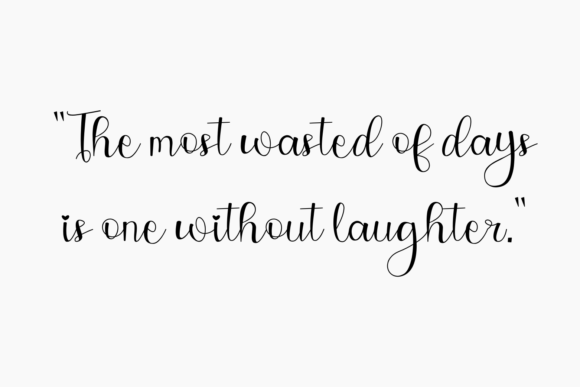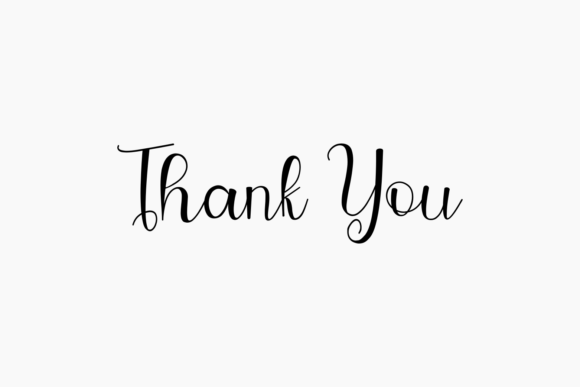
Introduction to Slupaiy Font
Have you ever stared at a blank page, feeling stuck and uninspired? That’s exactly where I was when I stumbled upon the Slupaiy Font. It’s a sweet and beautiful handwritten font that instantly sparked my creativity and transformed my design project into something truly special.
As designers, we’re always on the lookout for unique design resources that can elevate our work and make it stand out. The Slupaiy Font is a high-quality, free download that’s perfect for any creative project, from wedding invitations to social media graphics. With its beautiful, flowing characters that dance along the baseline, this font adds a luxury spark to any design.
Key Features of Slupaiy Font
- High-quality font design suitable for creative projects, available for free download.
- Unique, hand-drawn style with a transparent background, making it perfect for graphic designers and digital artists.
- Supports a wide range of languages, making it a versatile design resource for international projects.
Honest Review: Slupaiy Font
As a designer, I’m always on the lookout for high-quality design resources that can elevate my creative projects. Recently, I stumbled upon the Slupaiy Font, and I was eager to give it a try. Here’s my honest review.
What works well: ✨ I was impressed by the font’s unique and quirky design, which added a touch of personality to my project. The transparent background made it easy to overlay on images, and the free download was a bonus. The font is also highly customizable, which is perfect for designers who want to add a personal touch to their work.
What doesn’t: ⚠️ While the Slupaiy Font is a great design resource, I did encounter some limitations. The font is not ideal for large-scale text, and it can be a bit difficult to read at smaller sizes. Additionally, the font is not as versatile as some other fonts I’ve used, which can limit its use in certain design contexts.
Overall impression: I was pleasantly surprised by the Slupaiy Font, and I would definitely recommend it to designers who are looking for a unique and creative font. While it may have some limitations, it’s a great addition to any design resource library.
- Unique and quirky design
The Slupaiy Font is ideal for various creative projects, including:
- Branding materials
- Advertising and marketing materials
- Graphic design projects